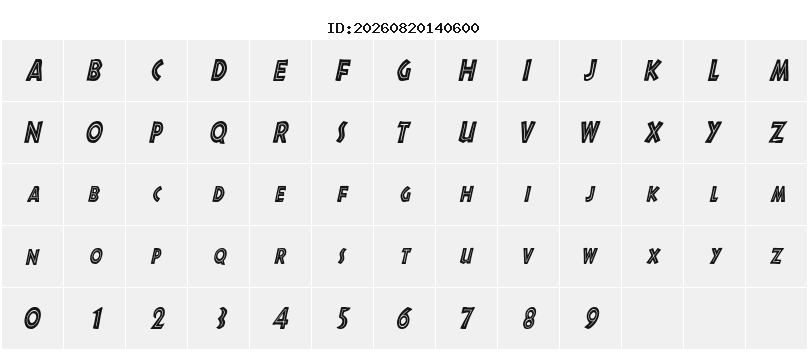
ShakazuluCondensed Preview
• Font Name: ShakazuluCondensed
• Font ID: SWFTE:ShakazuluCondensed Italic
• Full Font Name: ShakazuluCondensed Italic
• Version: Rev. 003.000
• PostScript Name: ShakazuluCondensedItalicSWFTE
• Character Count: 235
About ShakazuluCondensed.ttf
ShakazuluCondensed.ttf is a modern, elegant sans-serif font designed for ultimate readability and visual harmony. Perfect for branding, headlines, web design, and print materials.